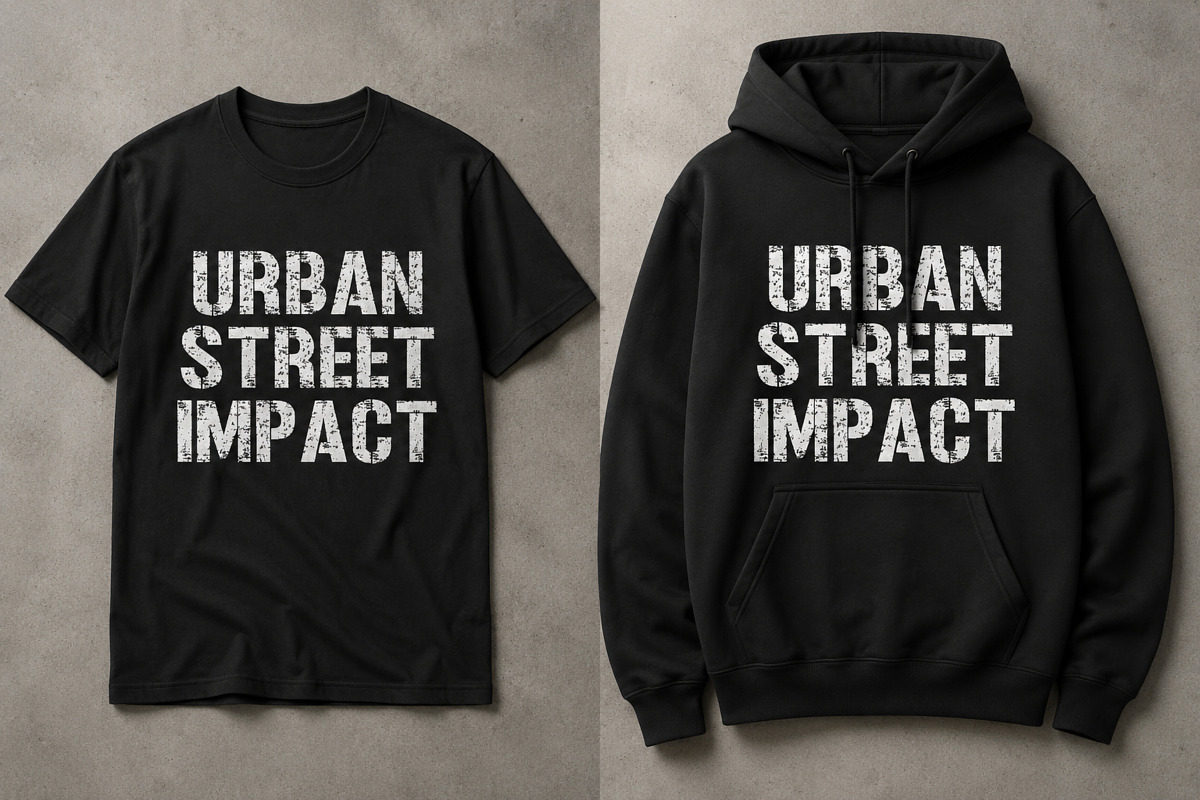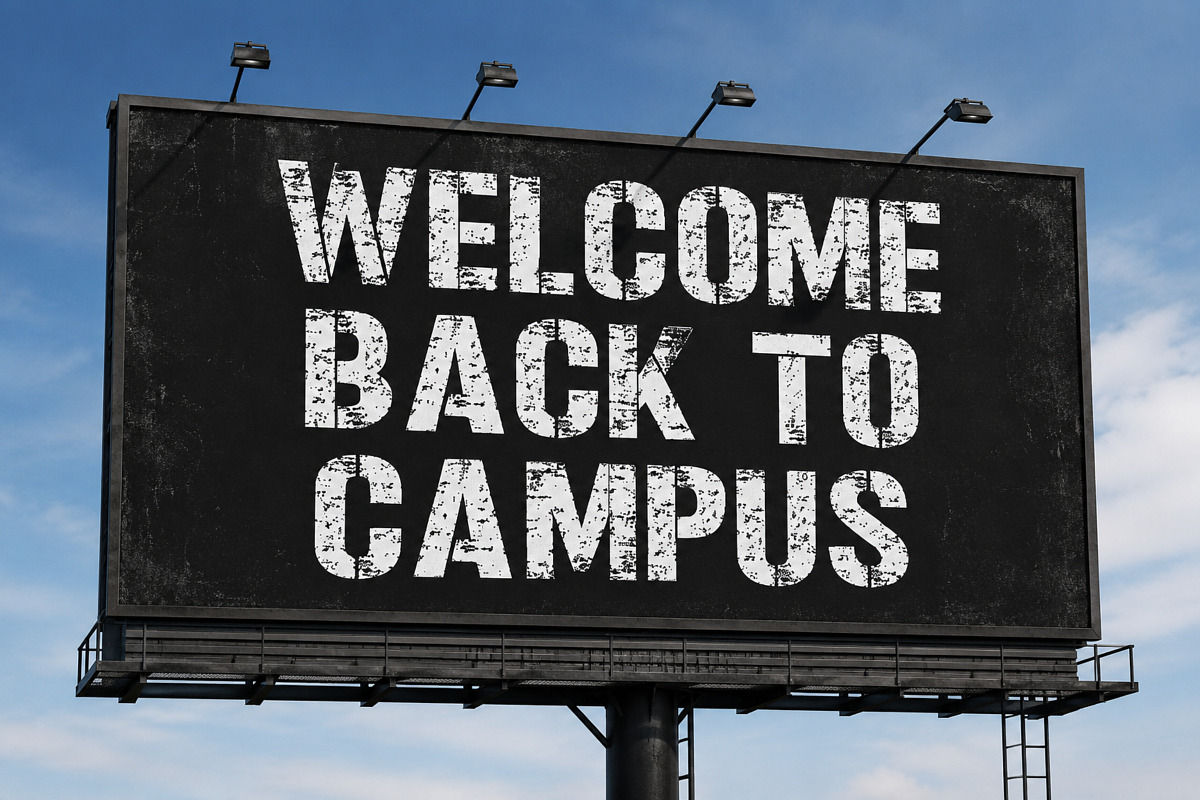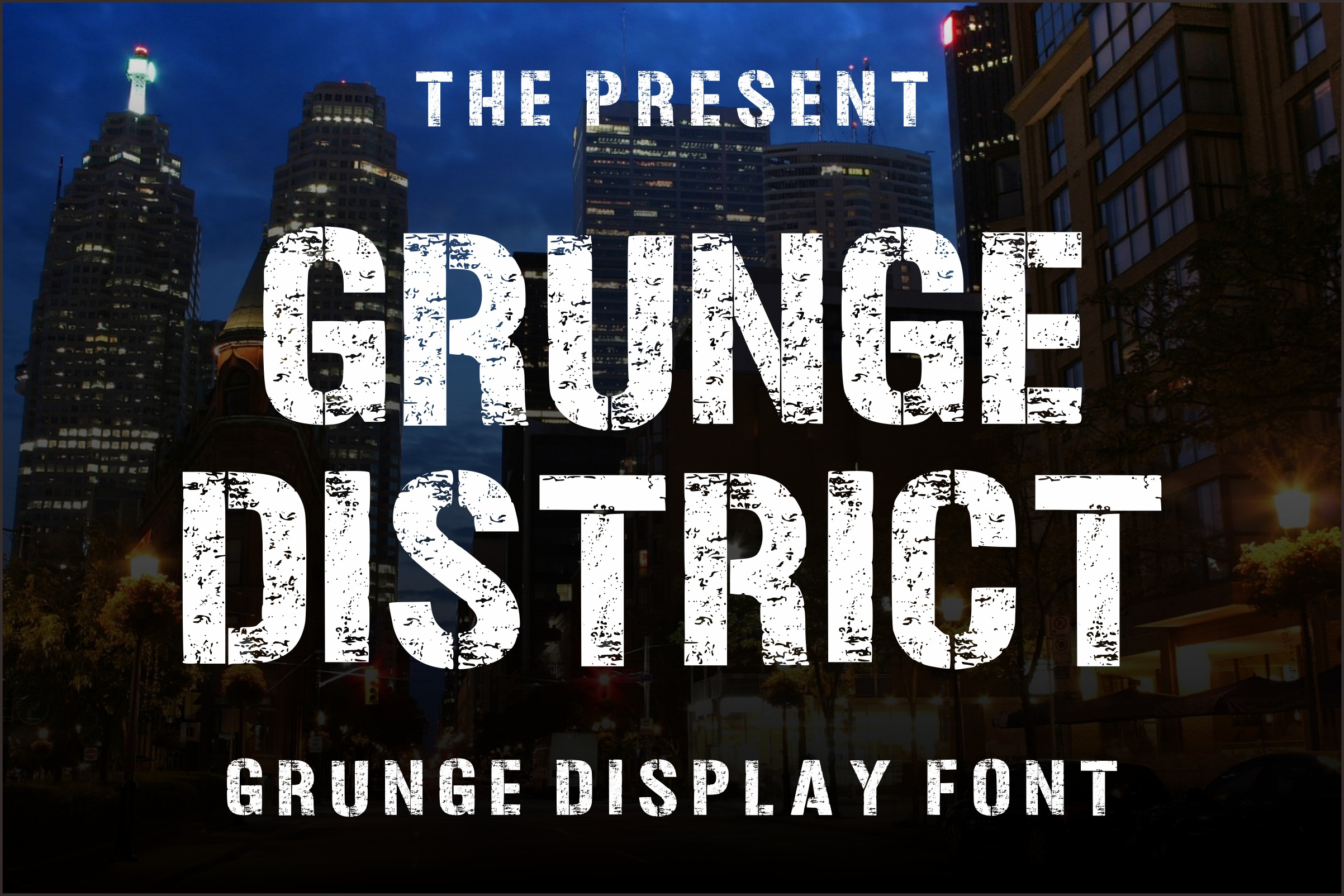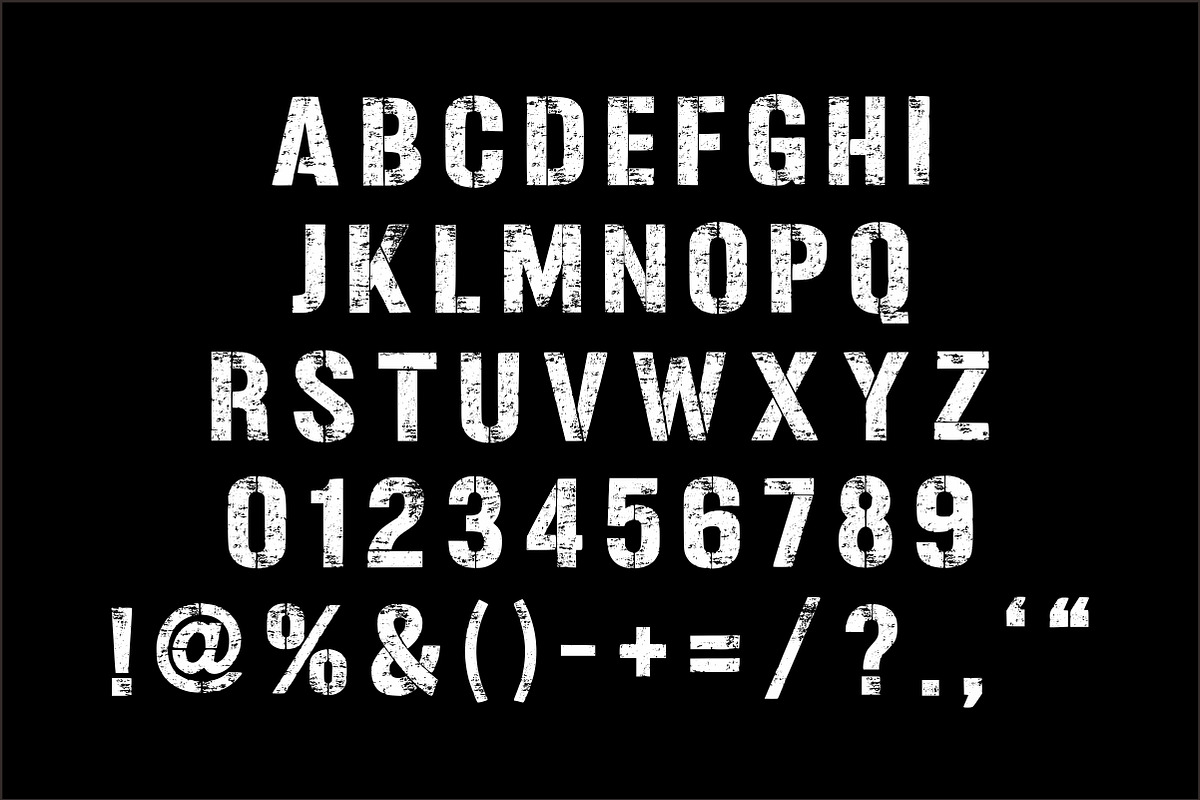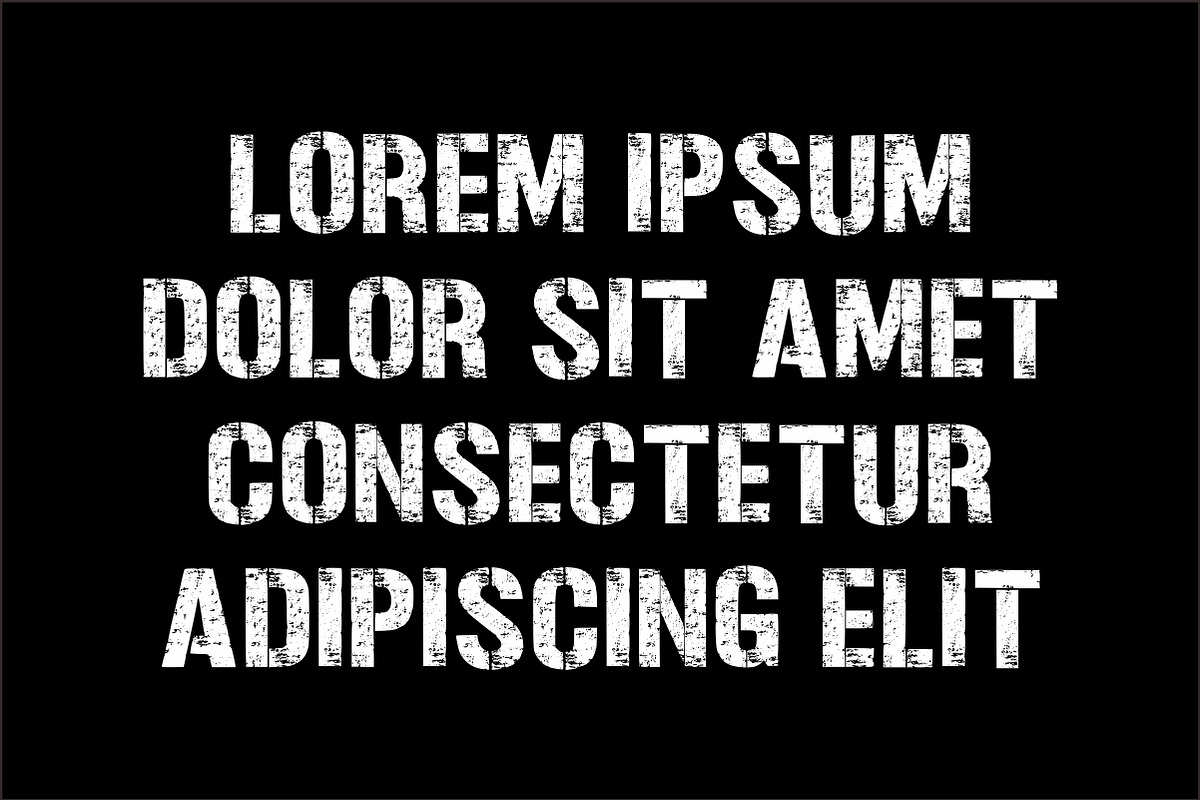
Grunge District - Bold Grunge Font
The Present Grunge District is a bold display font featuring an authentic distressed texture that delivers a rugged, urban aesthetic. Its worn and weathered appearance makes it ideal for eye-catching headlines, posters, music artwork, streetwear branding, sports graphics, merchandise, YouTube thumbnails, packaging, and vintage-inspired projects.
Whether you’re creating bold branding, rock concert posters, adventure-themed graphics, or modern grunge typography, this font adds strong visual impact and personality to every design.